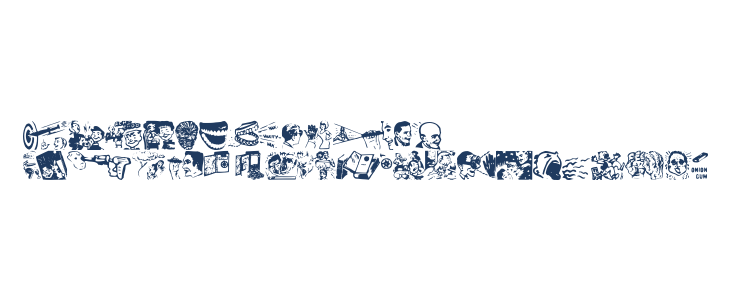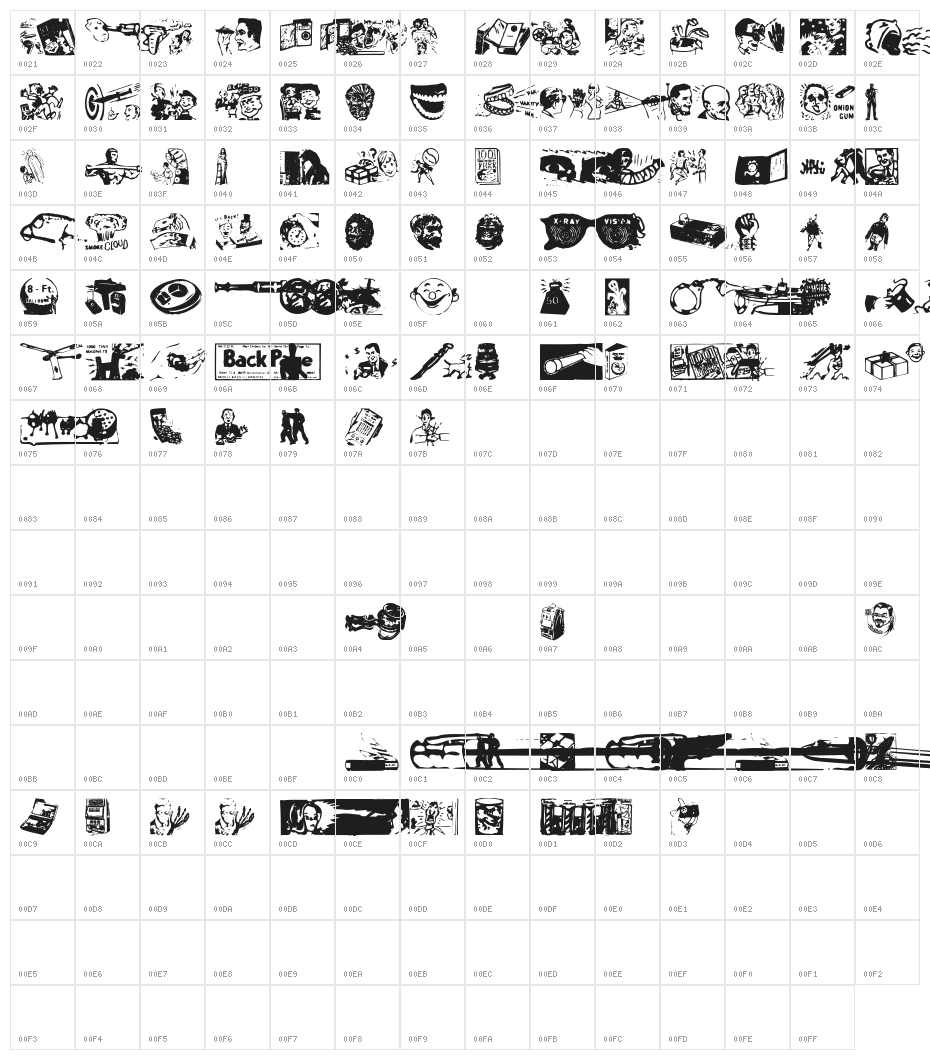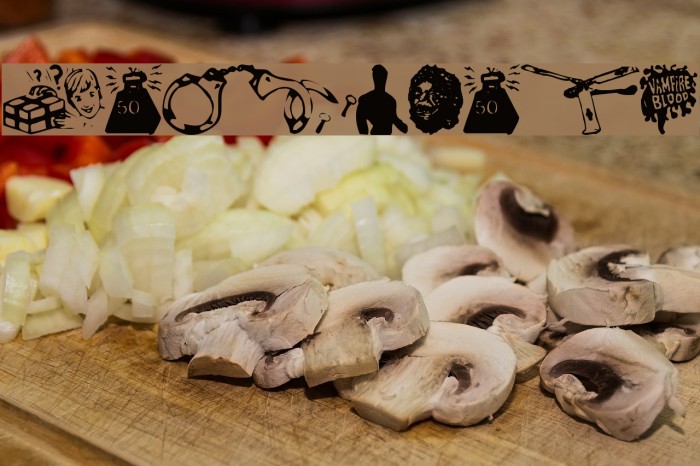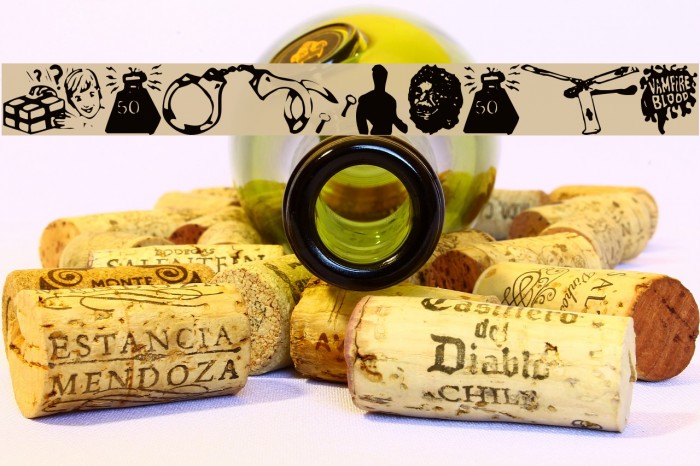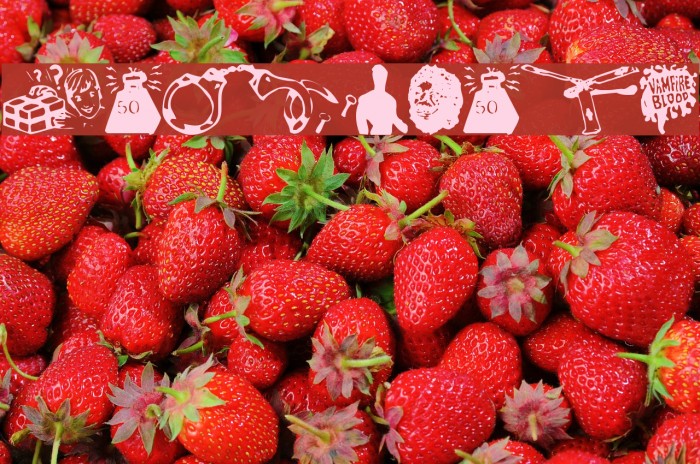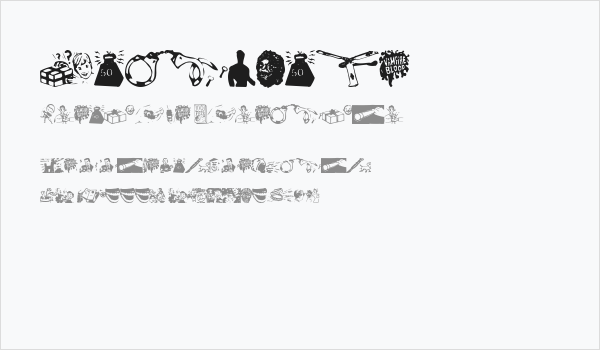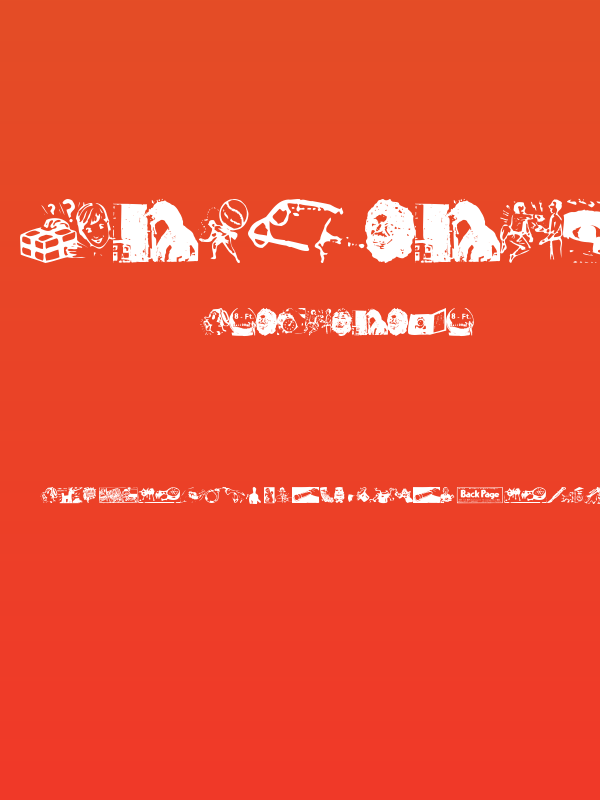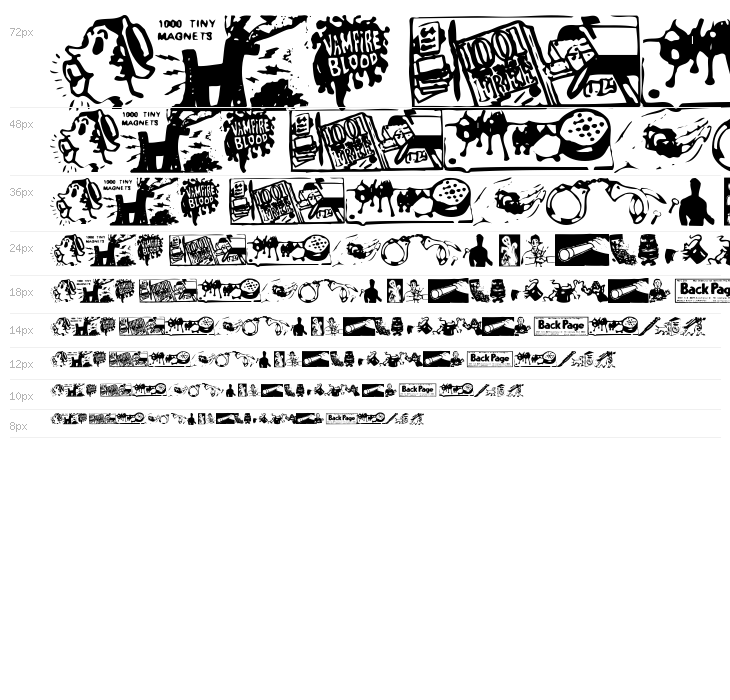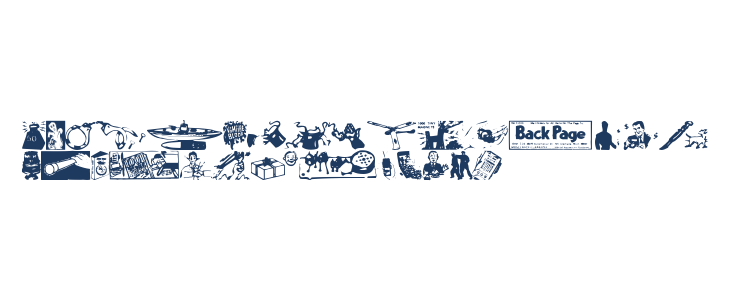
BackPage Font
A highly decorative dingbat font composed of detailed black-and-white comic-style illustrations, each glyph representing a unique scene or object with a retro, pulp magazine aesthetic. The characters are not traditional letters or numbers but rather individual pictorial icons, evoking vintage advertisements and comic book art.
| Overall Style | Decorative, Vintage, Comic |
| Use Case | Illustrative elements, graphic accents, thematic dividers, visual storytelling. |
| Proposed Projects | Posters, zines, comic books, retro-themed designs, album covers, event flyers, creative branding. |